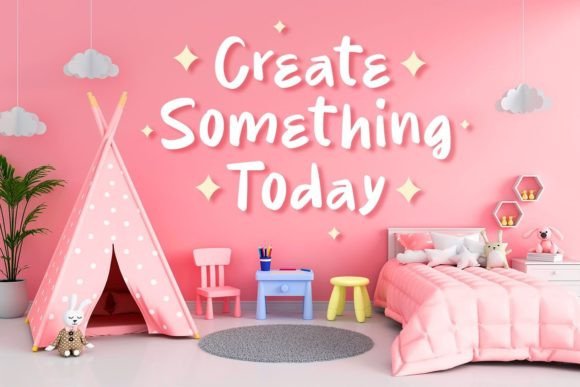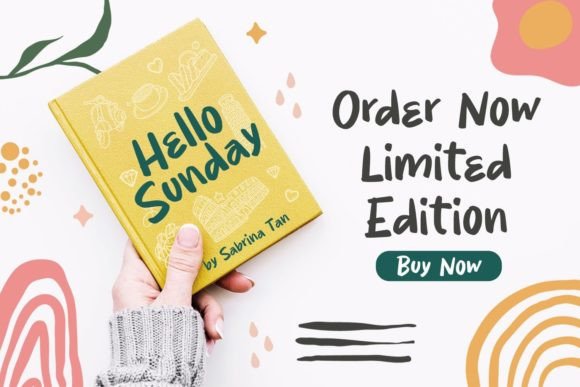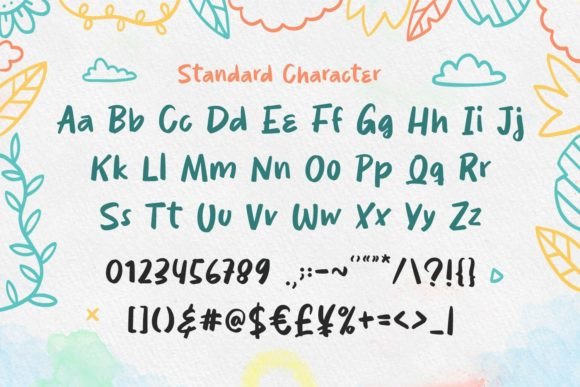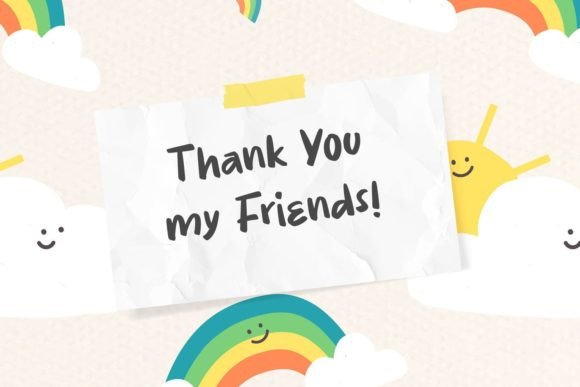
Introduction to Miyako Caroline Font
Miyako Caroline is a sweet and trendy handwritten font.
Fall in love with its cute and joyful style and use it to create gorgeous wedding invitations, beautiful stationary art, eye-catching social media posts, and much more .
Key Features of Miyako Caroline Font
Why Choose Miyako Caroline Font?
Miyako Caroline Font offers exceptional quality and versatility, making it a valuable addition to your design toolkit. Whether you’re creating for personal projects or commercial use, Miyako Caroline Font delivers professional results.